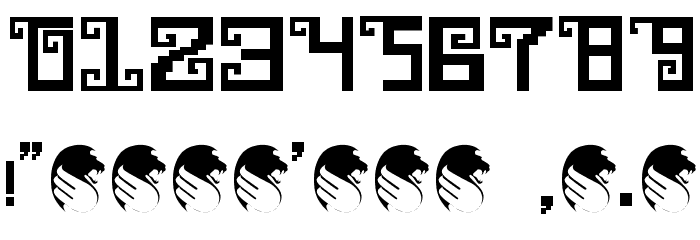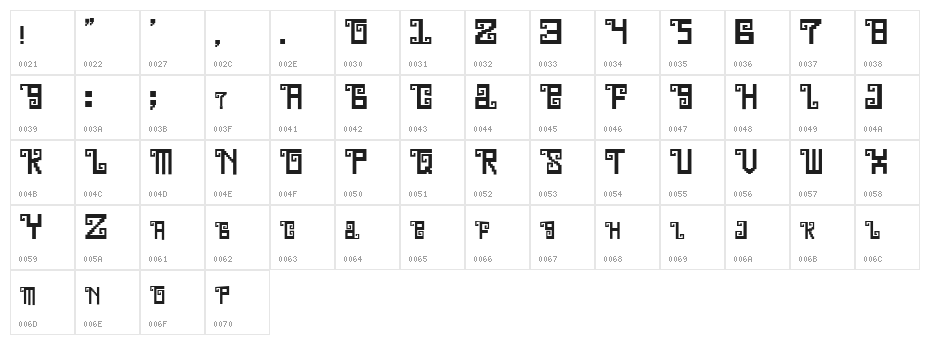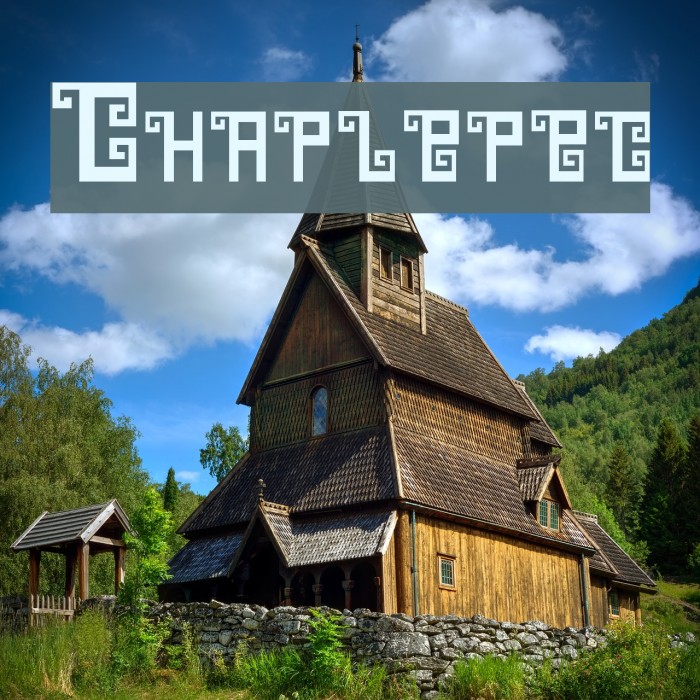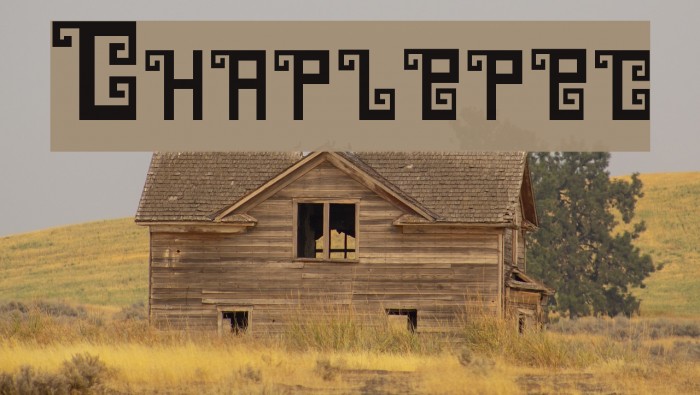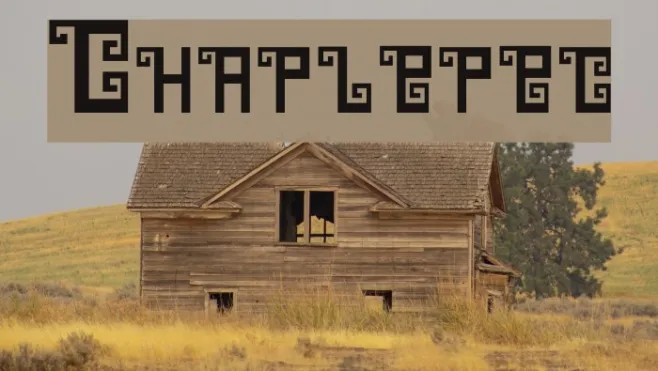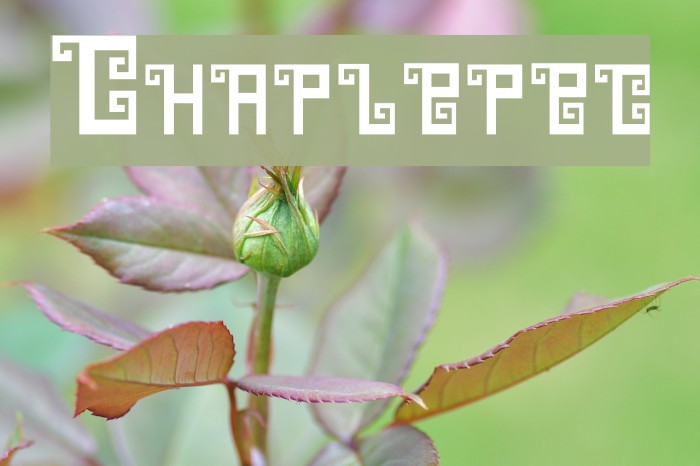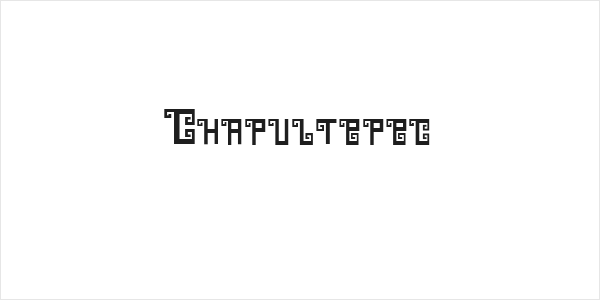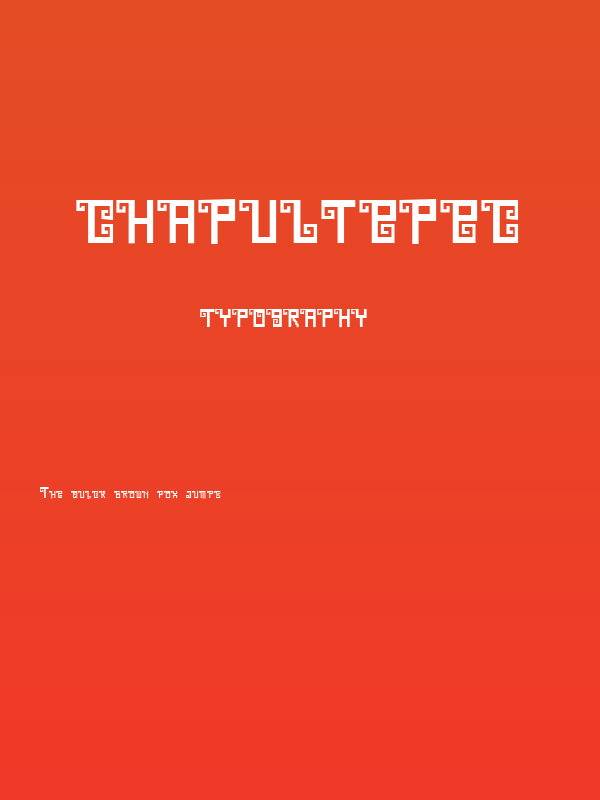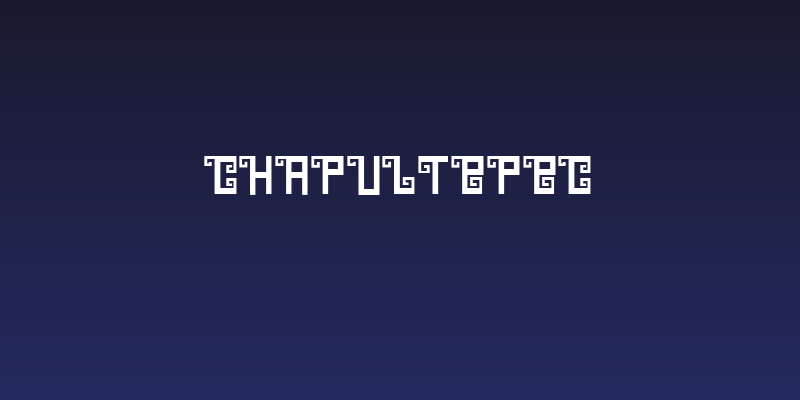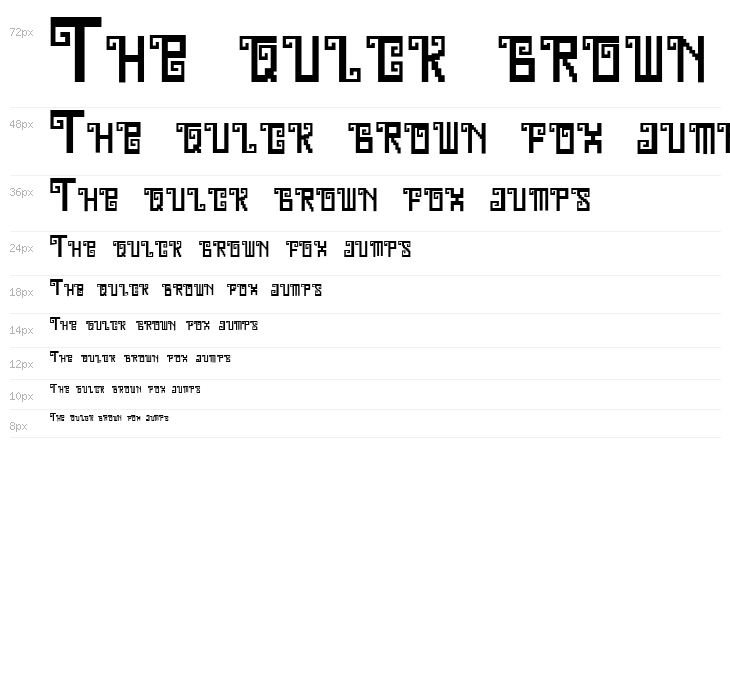
Chapultepec Font
Chapultepec Description
This font features a bold and geometric design with intricate, angular patterns reminiscent of ancient or tribal art. Each character is crafted with a unique combination of straight lines and sharp angles, creating a visually striking appearance. The uppercase letters have a consistent height and width, while the lowercase letters maintain the same geometric style, offering a cohesive look across the alphabet. Numbers and special characters follow the same design principles, ensuring uniformity. The font's boldness and distinctive style make it ideal for projects that require a strong visual impact.
| Proposed Projects | Ideal for branding, posters, and any design needing a strong, tribal-inspired aesthetic. |